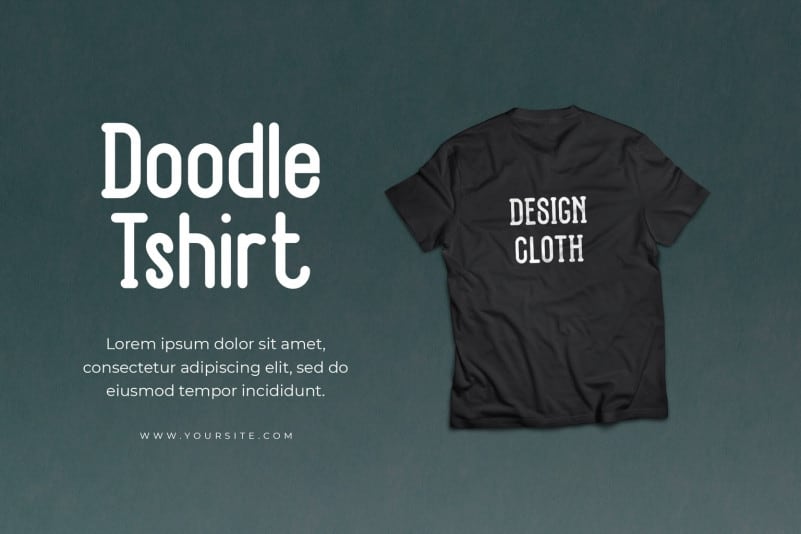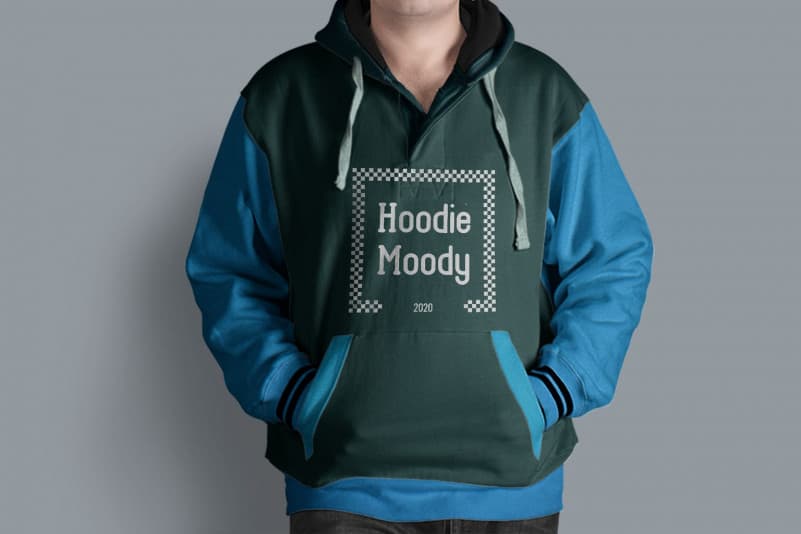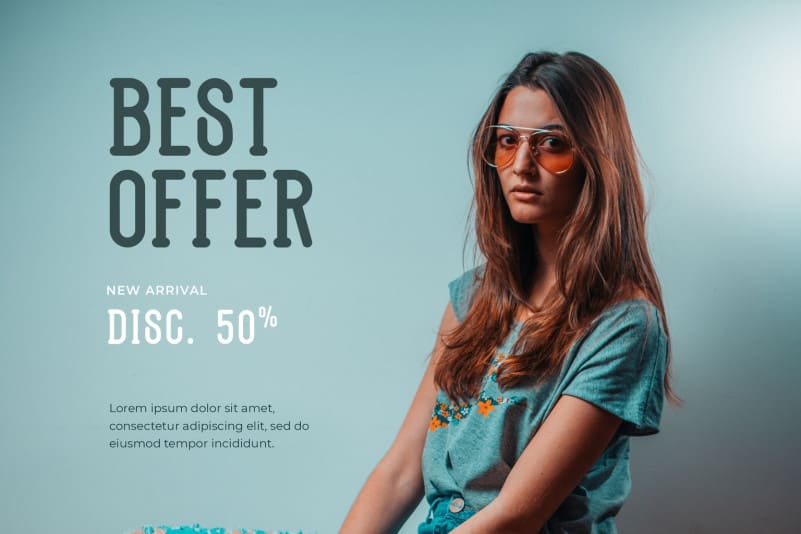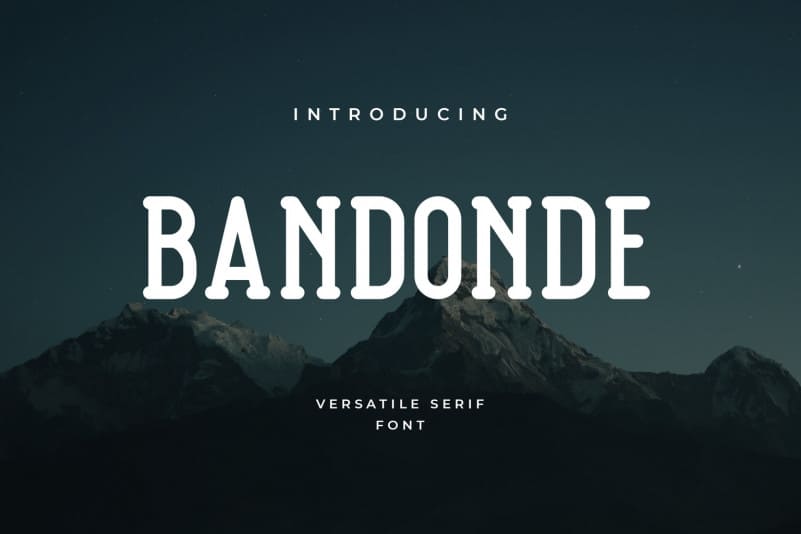
Bandonde Serif Font
Bandonde Serif Font is lovely cute multipurpose handmade typeface, It’s designed and shared by UI Creative. It is a font that belongs to the decorative serif family. It has a firm style with modern and elegant serif nuances. This font has a combination of ligatures, stylistic alternates, and swashes that can be adjusted. Perfect for logos & titles, beautiful layout & content, or large & small scale, This looks great on all wide hats if you want to try a classy and beautiful look with an impressive and proportionate choice of capital letters and lowercase letters. Fonts that are suitable for special cultures such as motorcycle enthusiasts, rockabilly trends, vintage, retro styles, and more.